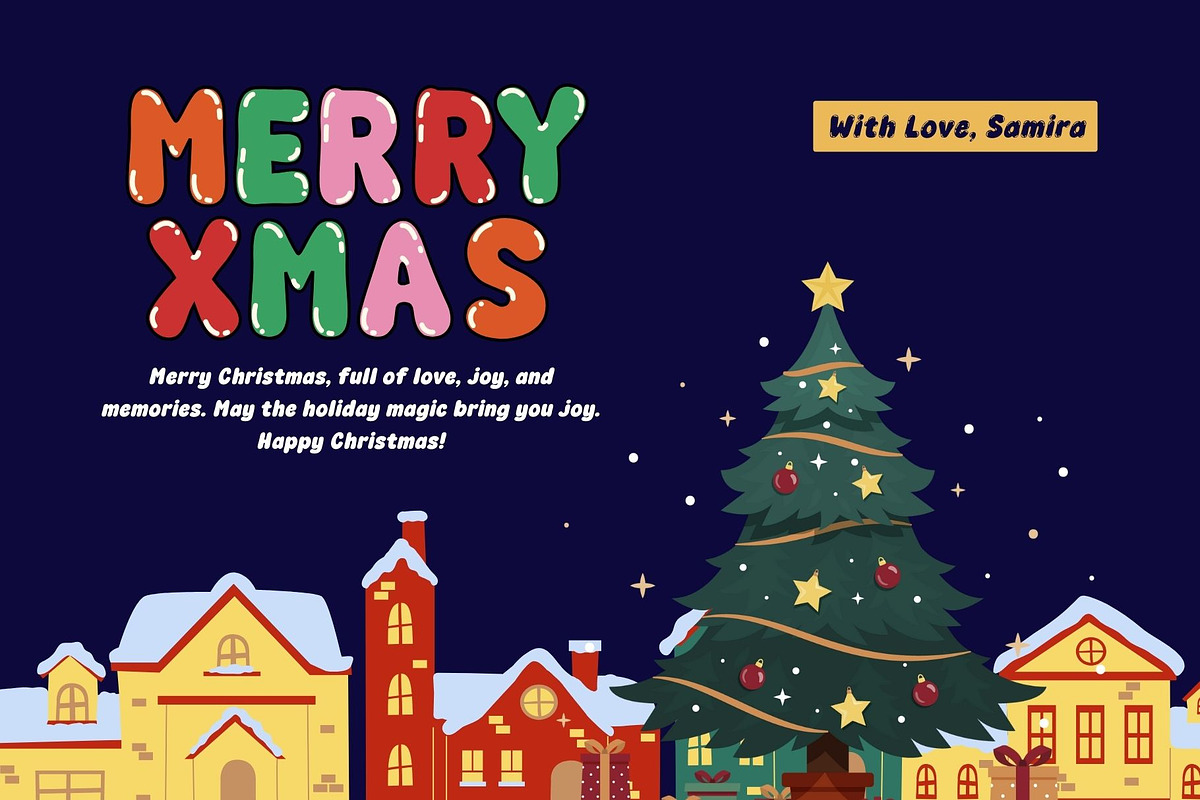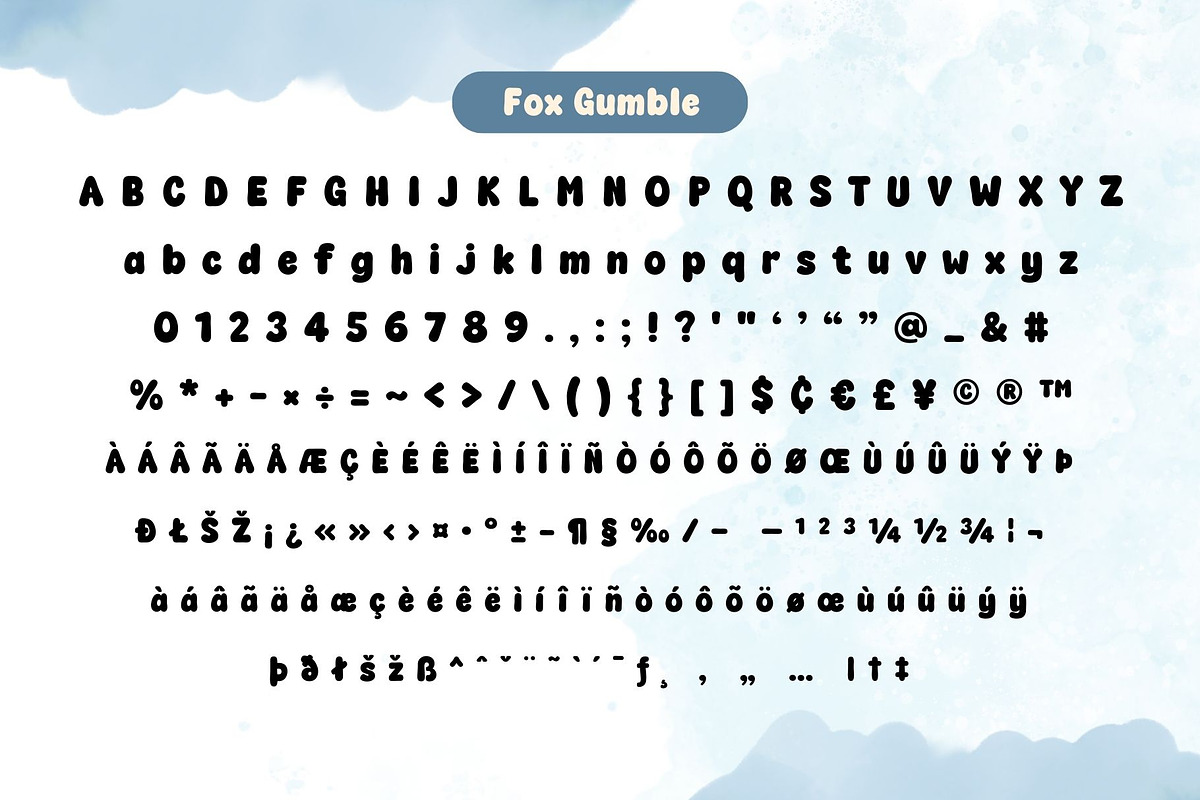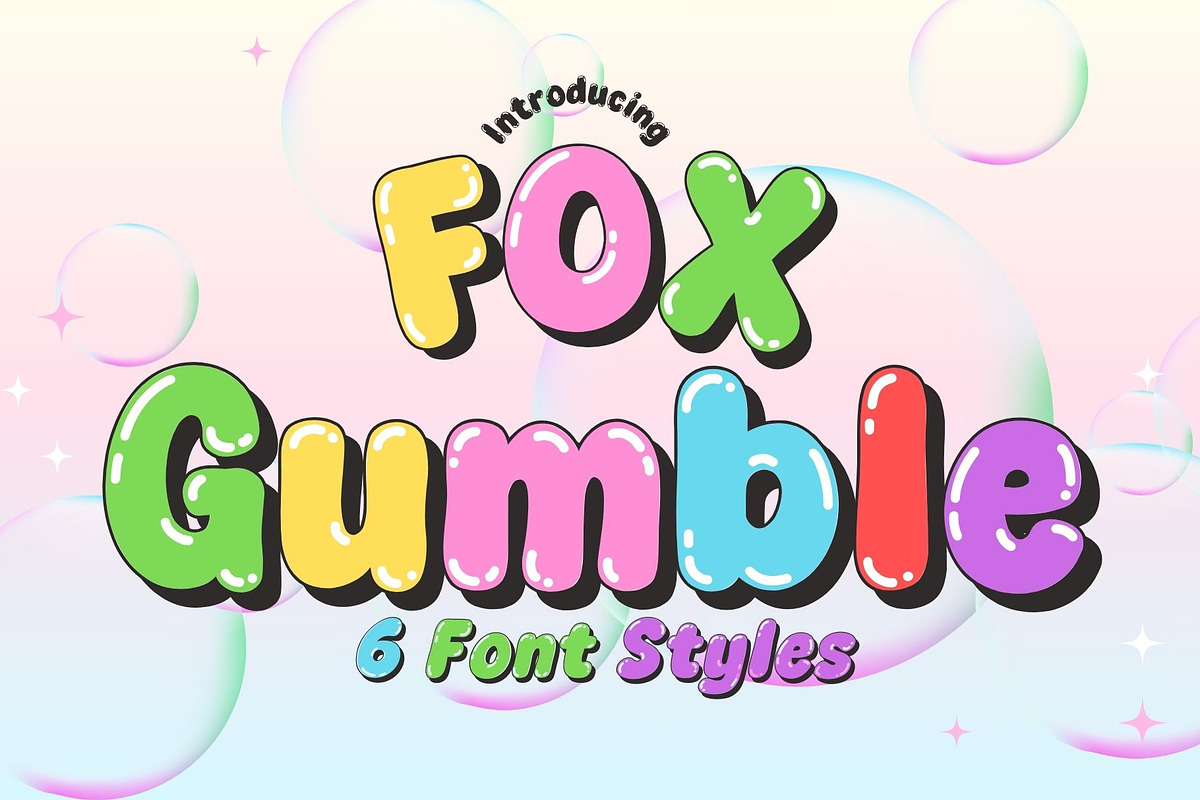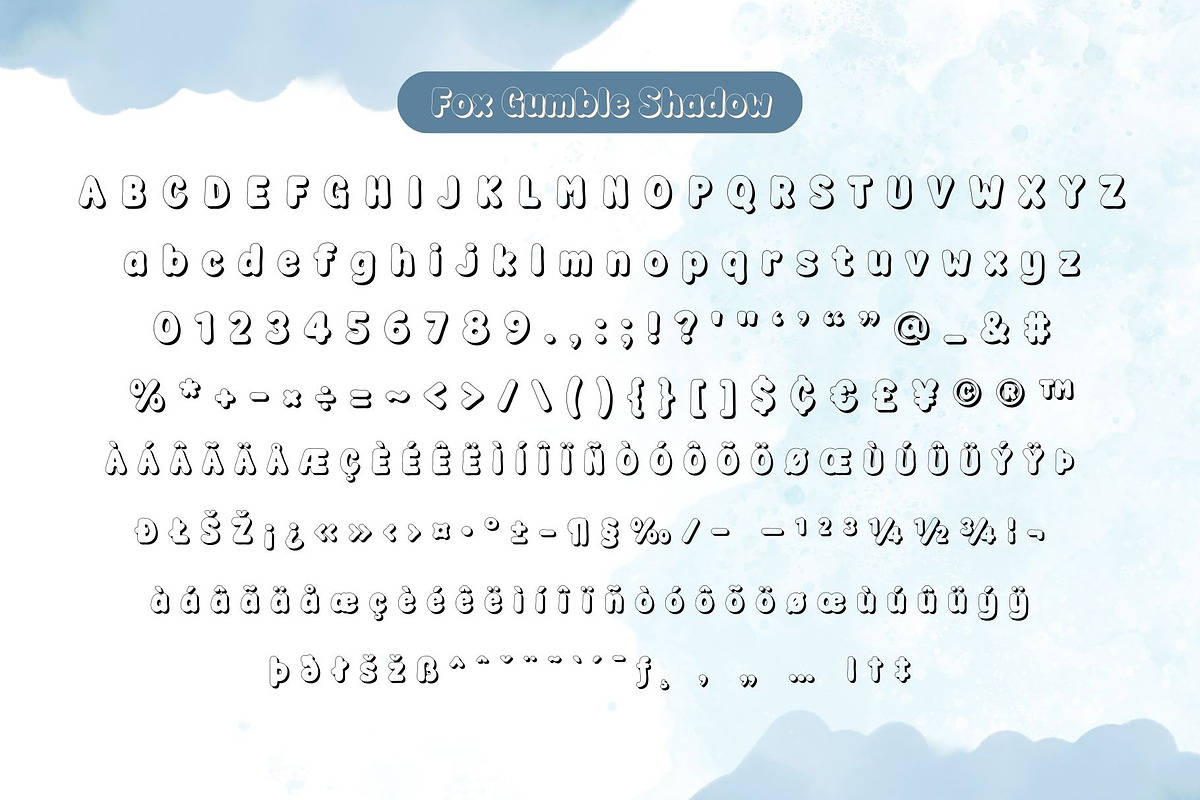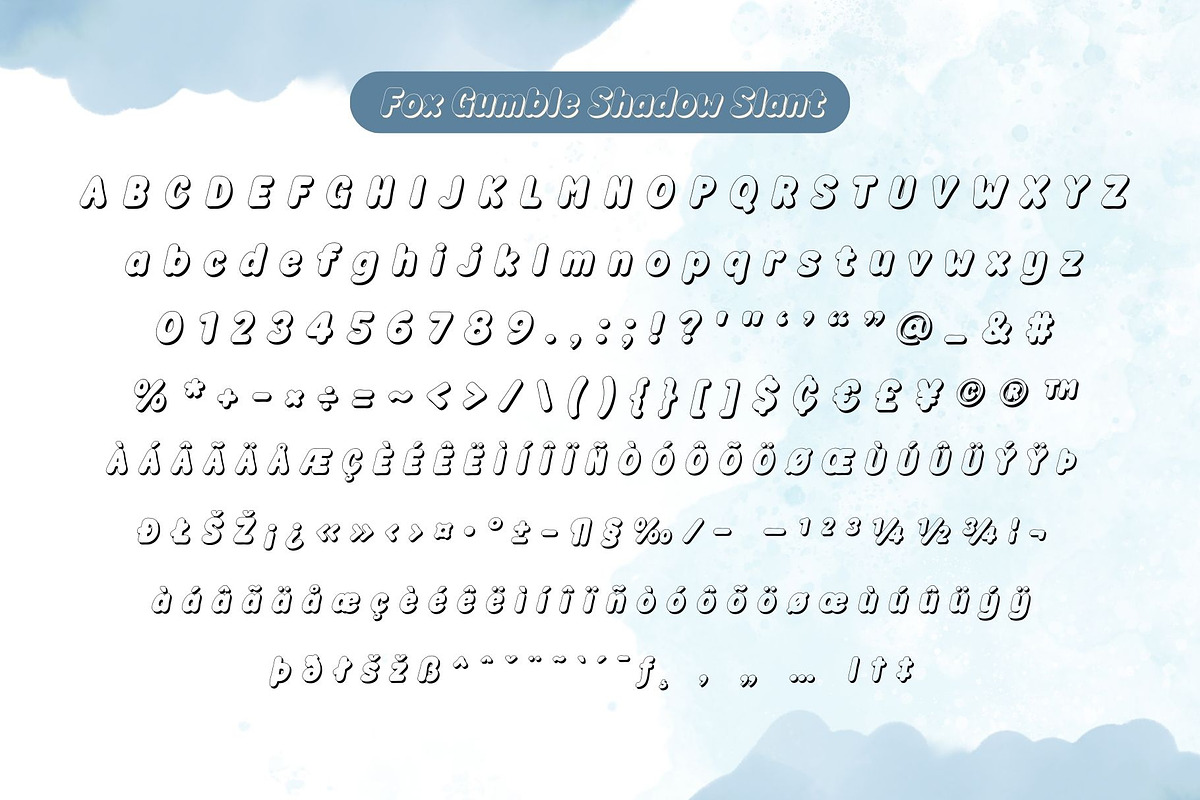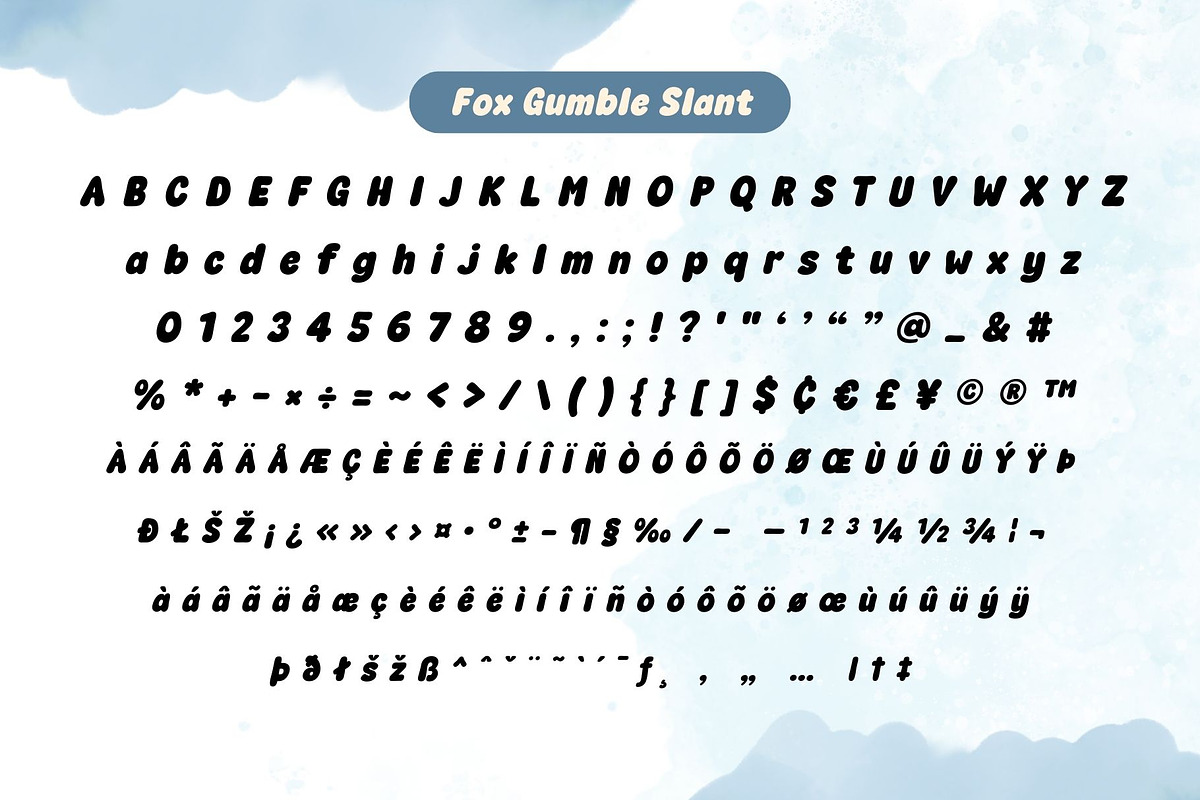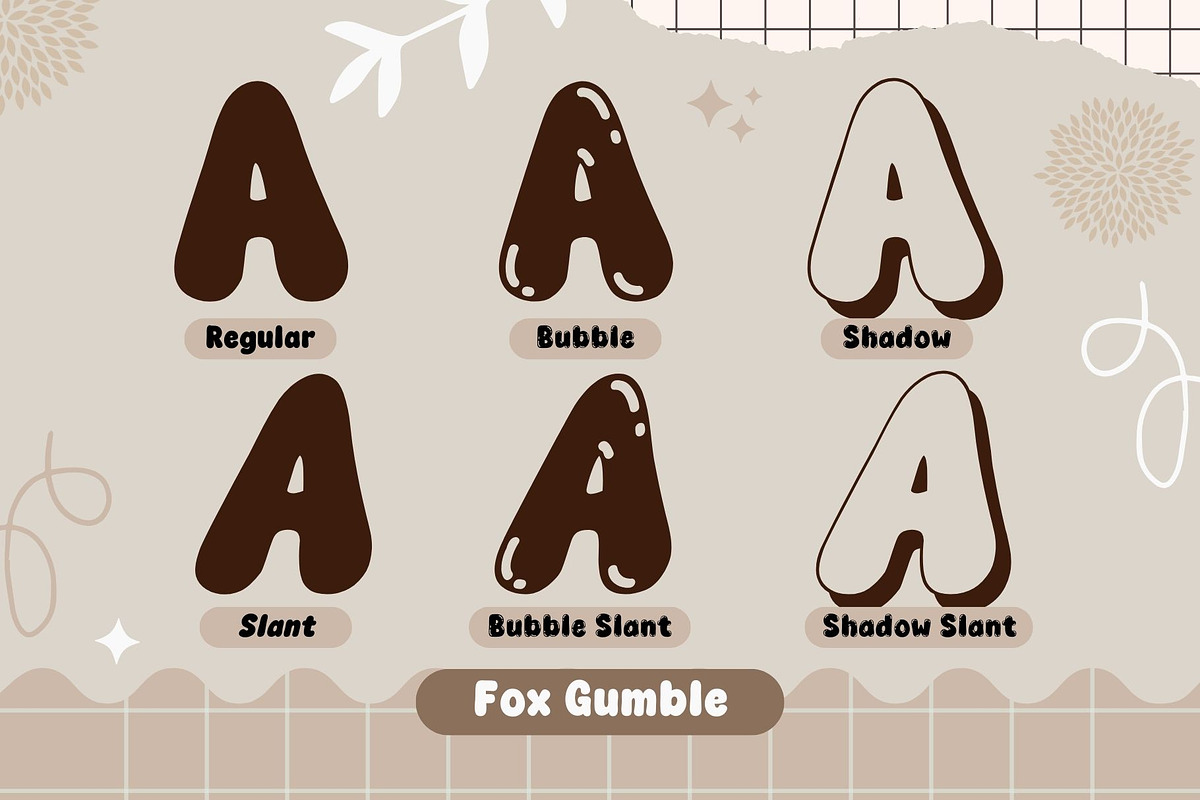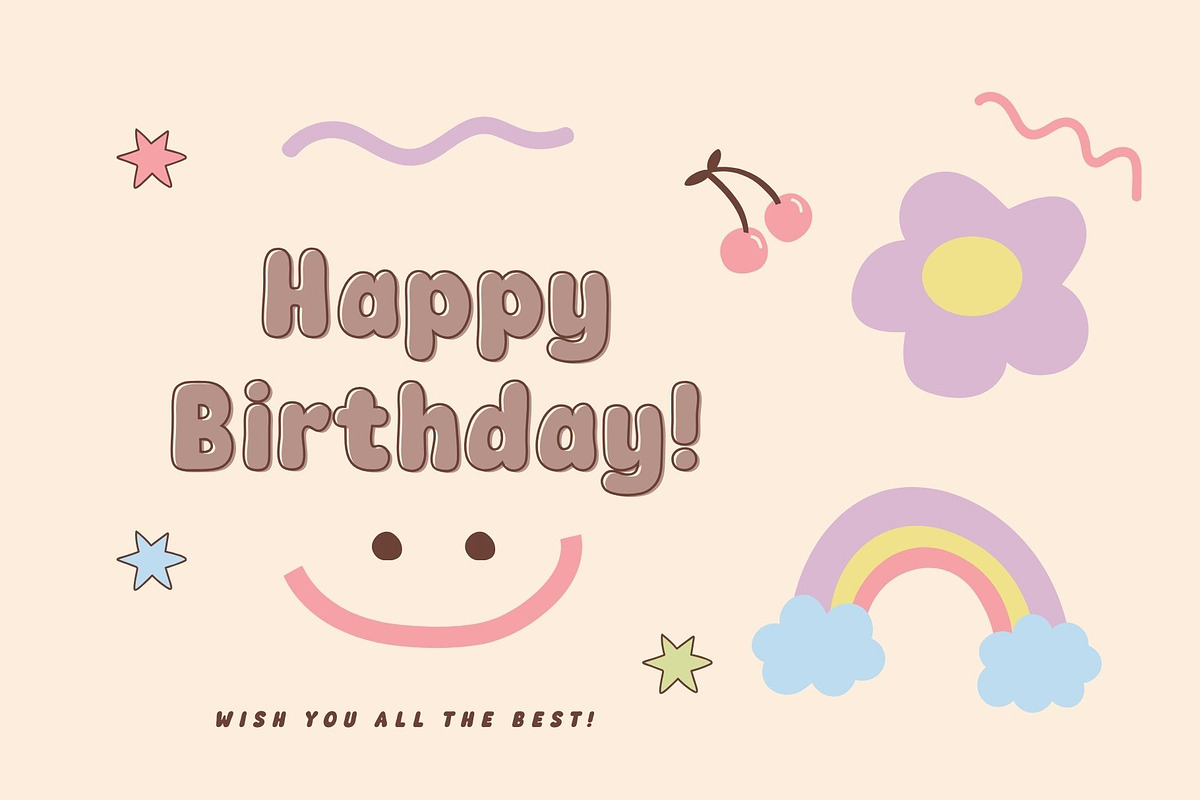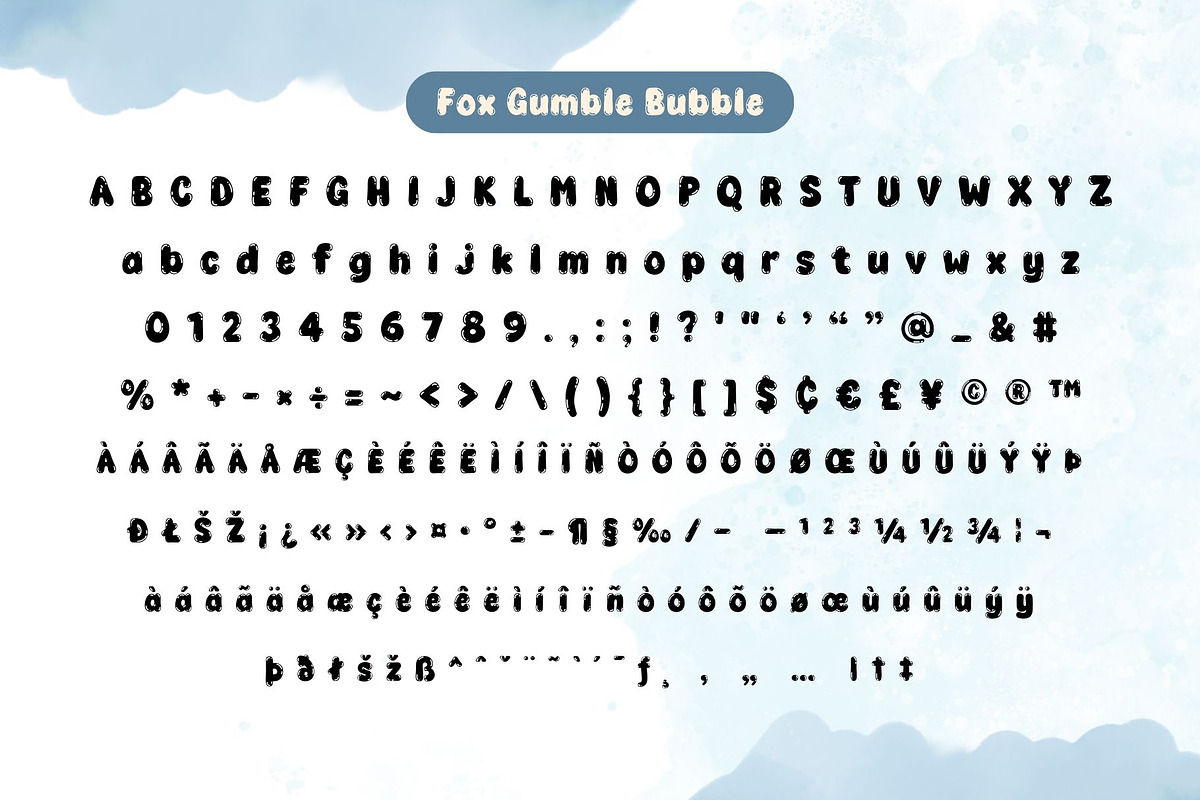
Fox Gumble : 6 Font Style
Fox Gumble is a cute and playful font with 6 styles to choose from, designed to bring your creative projects to life. It’s perfect for use in print materials, menus, logos, business cards, or even printing on T-shirts. These fonts are uniquely distinctive, featuring vibrant and expressive designs that help you create attention-grabbing headlines, T-shirt typography, banners, product labels, and so much more.